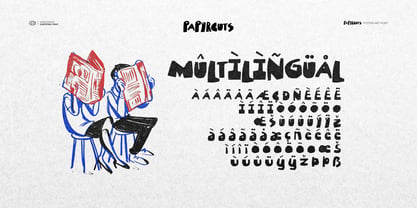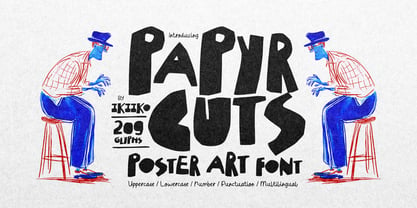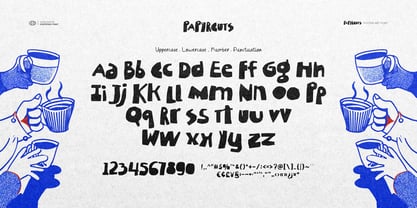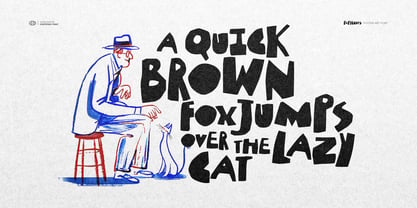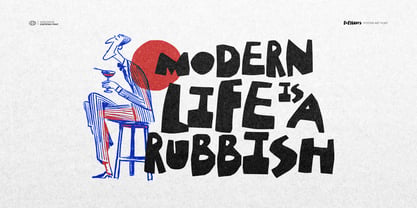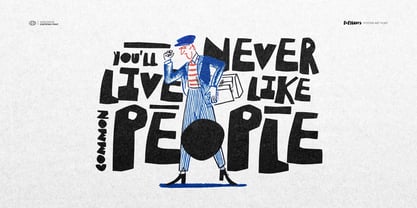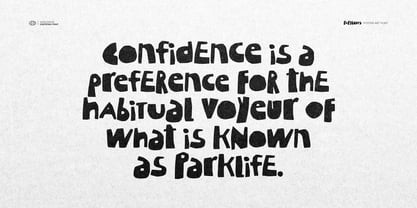
Papyrcuts
by IKIIKOWRK
The Papyrcuts Font Family was designed by Andhika Pradana and published by IKIIKOWRK. Papyrcuts contains 1 styles. More about this family
Proudly Present Papyrcuts - Poster Art Font, created by ikiiko Papyrcuts is a Cut Out Font crafted with a bold Papercut Style and a raw, artsy attitude. This typeface brings urban energy and hipster edge straight into your design—perfect for poster layouts, magazine titles, and streetwear branding. Each letter feels handmade and spontaneous, as if torn and arranged from real paper, giving your project that authentic DIY spirit and edgy visual punch. Whether you’re creating a hype editorial spread, an art exhibition poster, or an indie brand logo, Papyrcuts adds a layer of art-school rebellion and handcrafted imperfection. It’s the ultimate artsy display font for designers who love texture, bold personality, and experimental vibes. Every glyphs is a visual statement. Its irregular edges and expressive cuts embody the daring essence of modern art—perfect for striking posters, gallery showcases, bold branding, editorial covers, indie zines, or any creative project that craves attention. What's Included? :: Uppercase & Lowercase :: Numbers & Punctuation :: Multilingual Support :: Works on PC & Mac Enjoy our font and if you have any questions, you can contact us by email
Designers: Andhika Pradana
Foundry: IKIIKOWRK